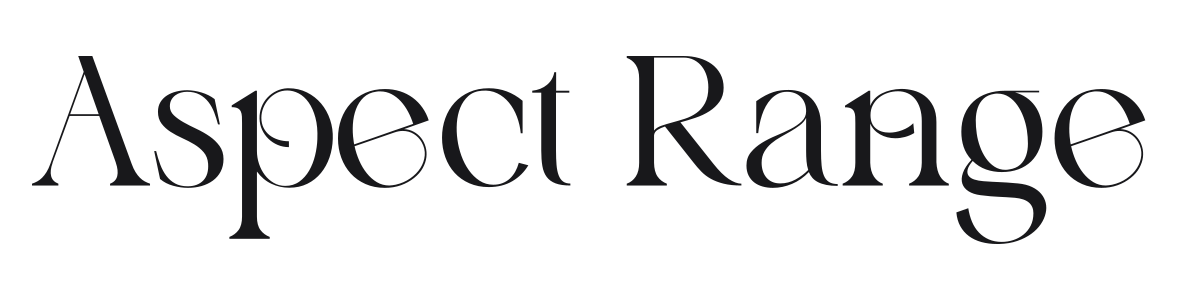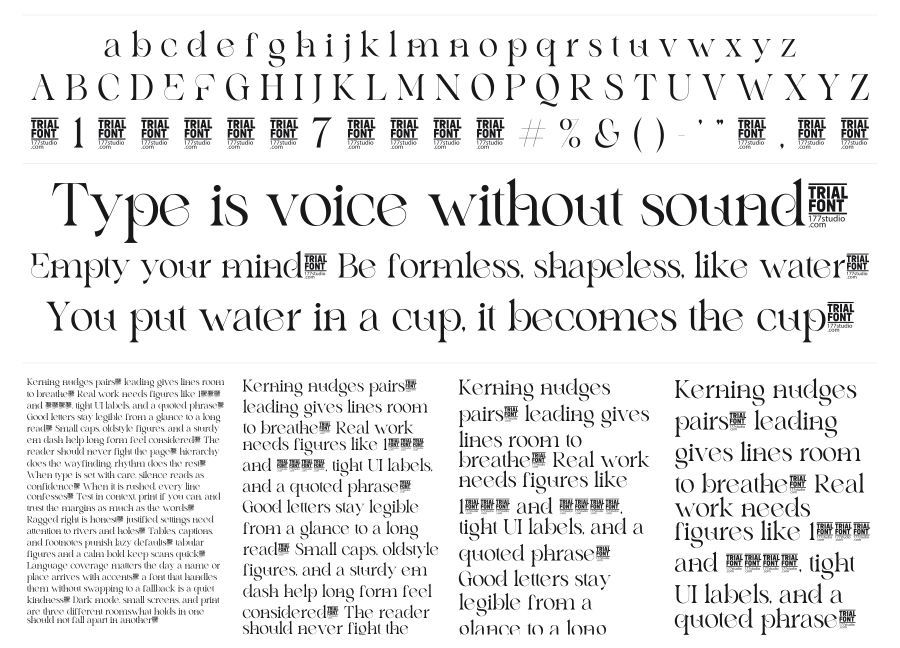
Aspect Range
Aspect Range is a high-contrast modern serif with dramatic hairline thins and bold stems rooted in the Didone tradition. The wide-set proportions and airy spacing give it a distinctly editorial, luxury-magazine quality. It carries enough calligraphic personality in certain characters to feel fresh rather than derivative.